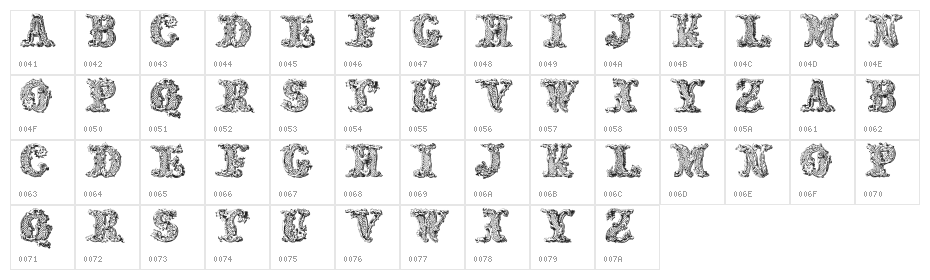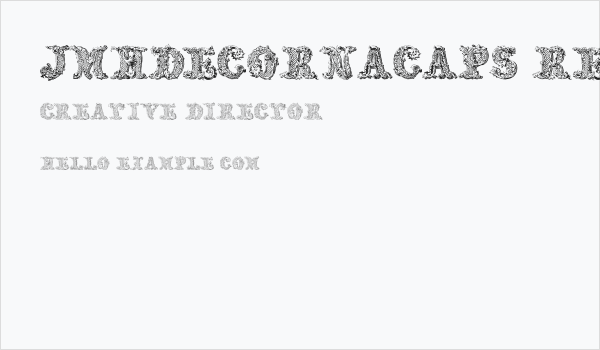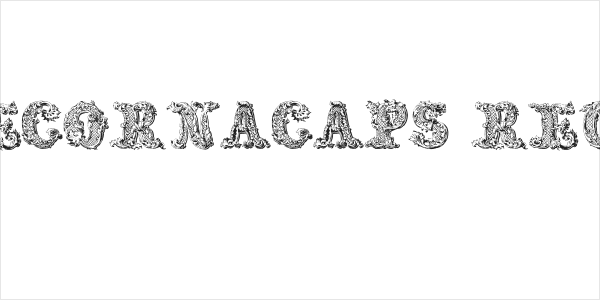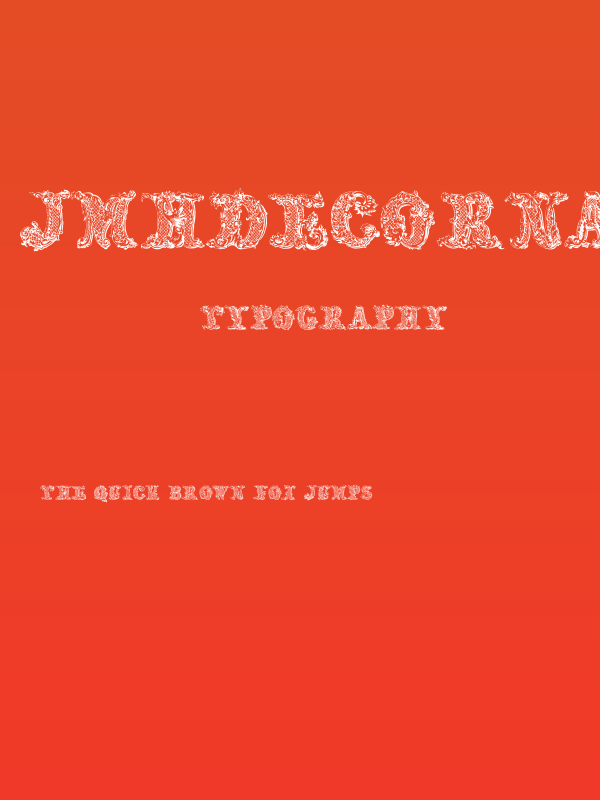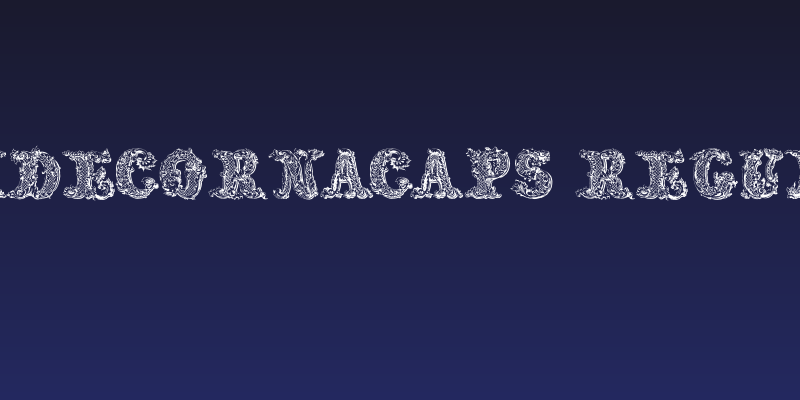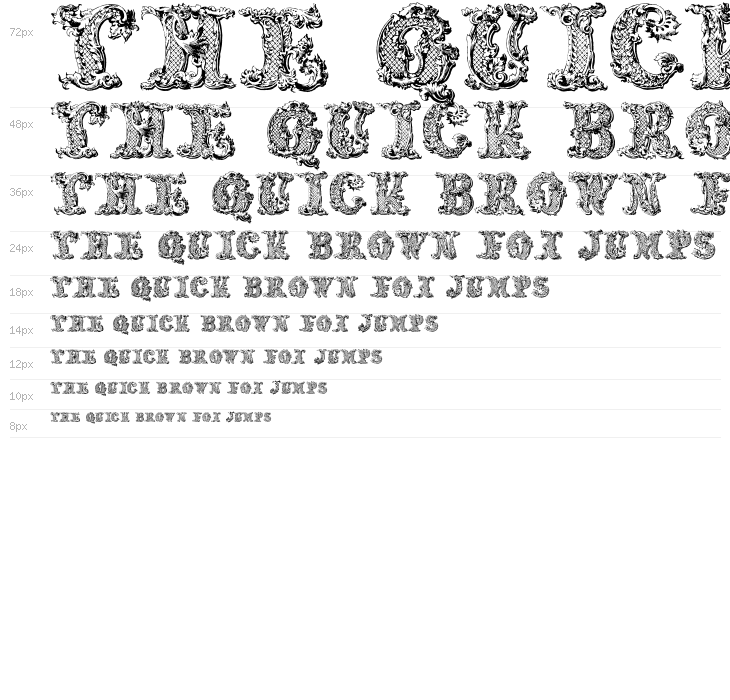
JMHDecornaCaps-Regular Font
JMHDecornaCaps-Regular Description
This font features an ornate and decorative style, characterized by intricate detailing and embellishments on each letter. The design is reminiscent of vintage or baroque aesthetics, with swirling patterns and flourishes that give it a luxurious and artistic appearance. The uppercase letters are particularly elaborate, making them stand out as statement pieces in any design. The font's unique style makes it suitable for projects that require a touch of elegance and sophistication, such as invitations, posters, or branding materials that aim to convey a sense of grandeur and tradition.
| Proposed Projects | Ideal for wedding invitations, luxury branding, vintage posters, and decorative signage. |